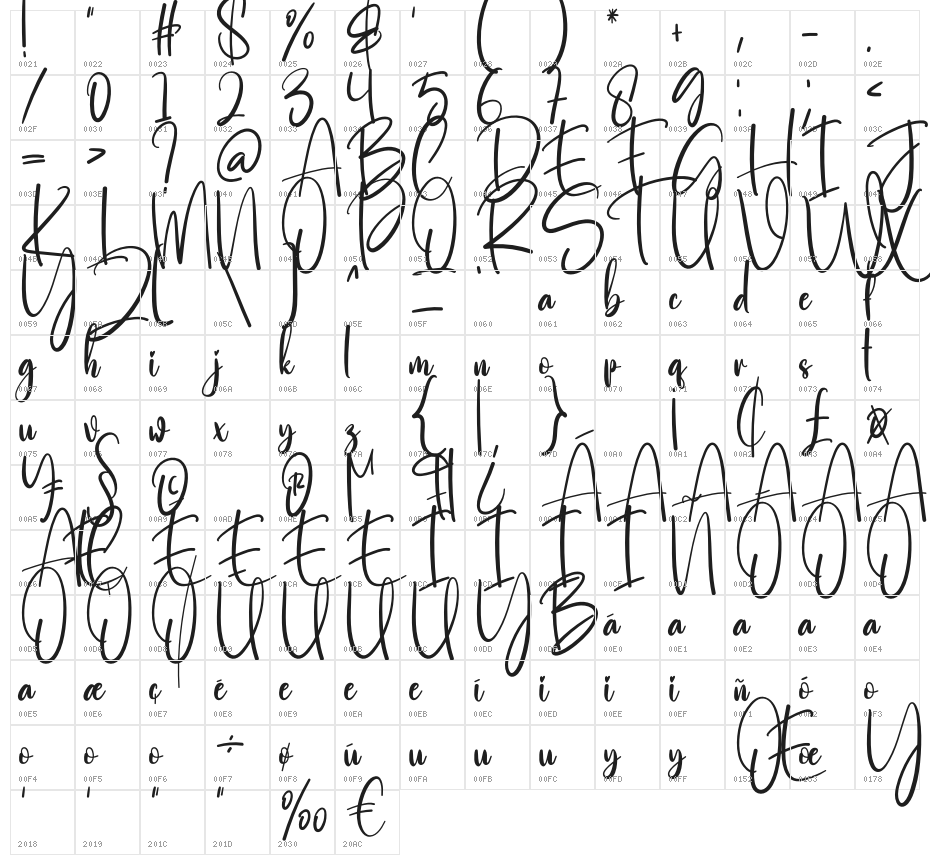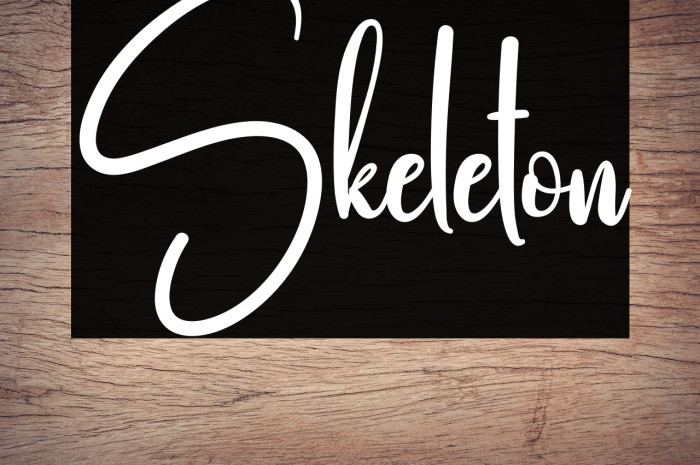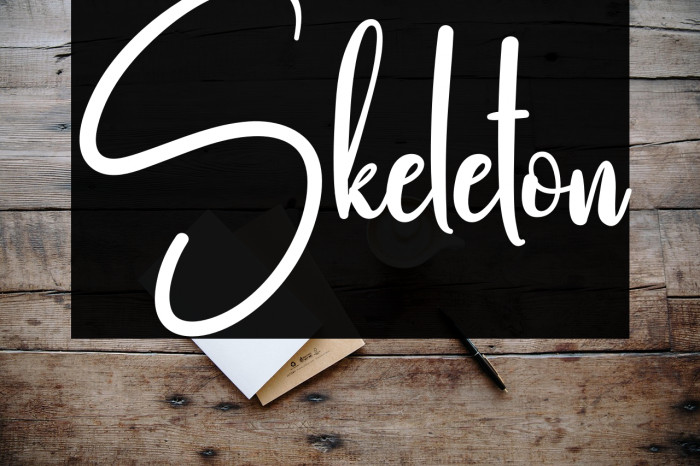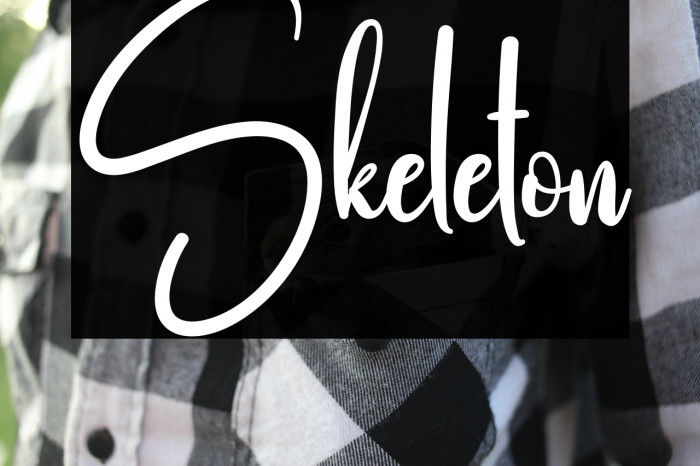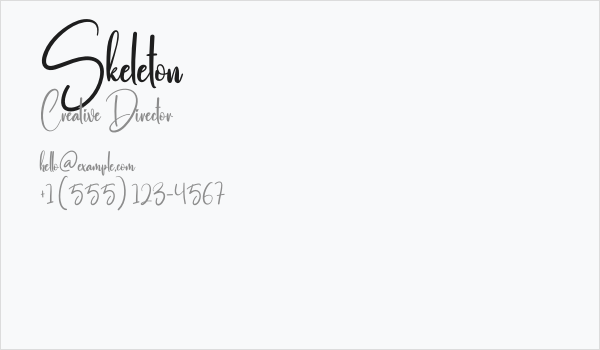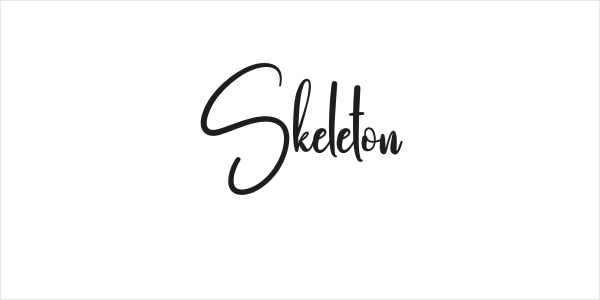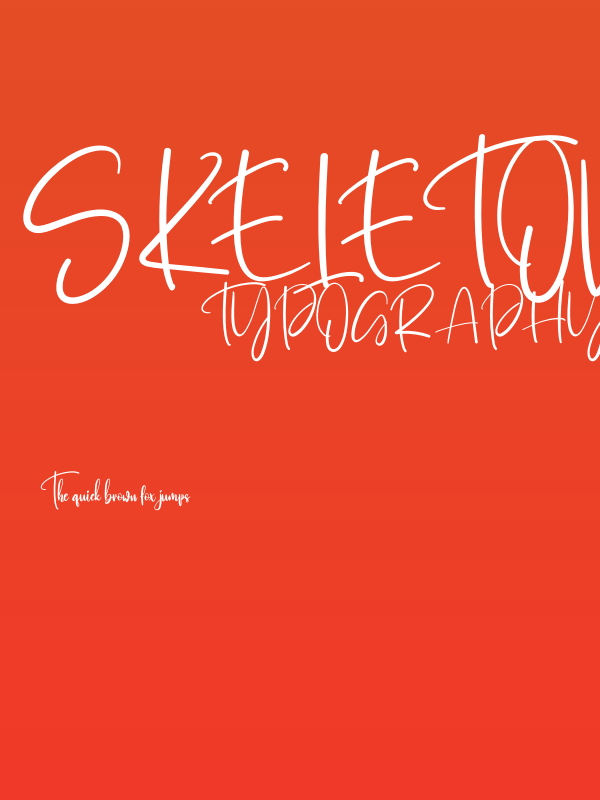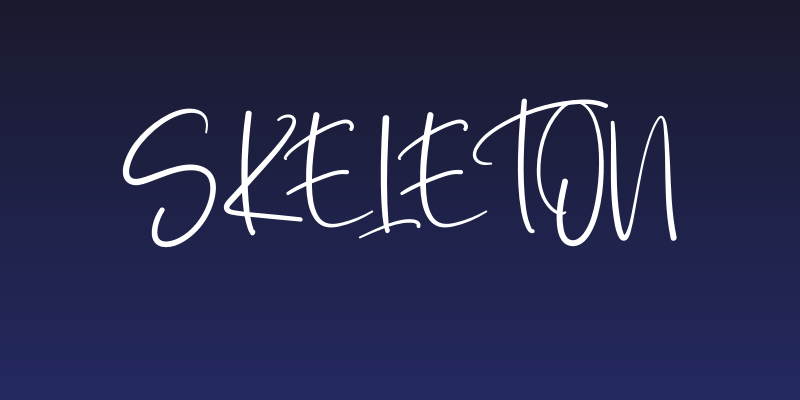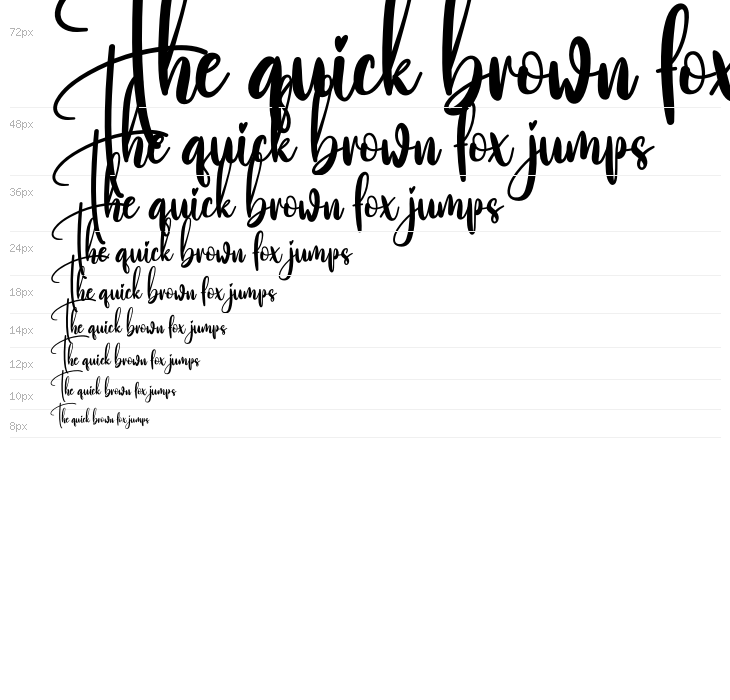
Skeleton Font
Skeleton Description
This font features a dynamic and expressive handwritten style, characterized by its fluid and cursive strokes. The uppercase letters are tall and slender, with a slight slant that adds a sense of motion and elegance. The lowercase letters are more bold and rounded, providing a striking contrast to the uppercase. Numbers and special characters maintain the same lively and informal aesthetic, making the font versatile for various creative applications. The overall appearance is playful yet sophisticated, suitable for projects that require a personal touch.